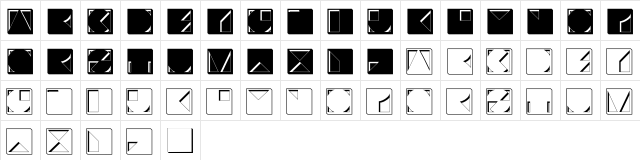
TypoTracesOne Regular Font Preview
TypoTracesOne Regular
Design Context for TypoTracesOne Typeface
TypoTracesOne is a composed and adaptable typeface that performs quietly and consistently across a wide range of design contexts.